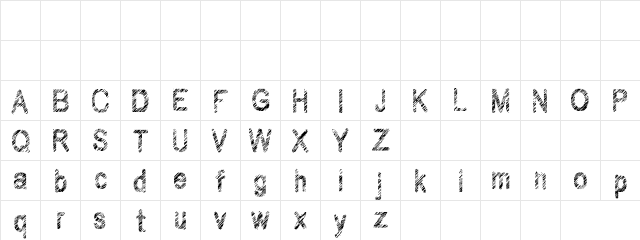
Red Cross Regular
Design Context for Red Cross Typeface
Red Cross is a composed and adaptable typeface that performs quietly and consistently across a wide range of design contexts.